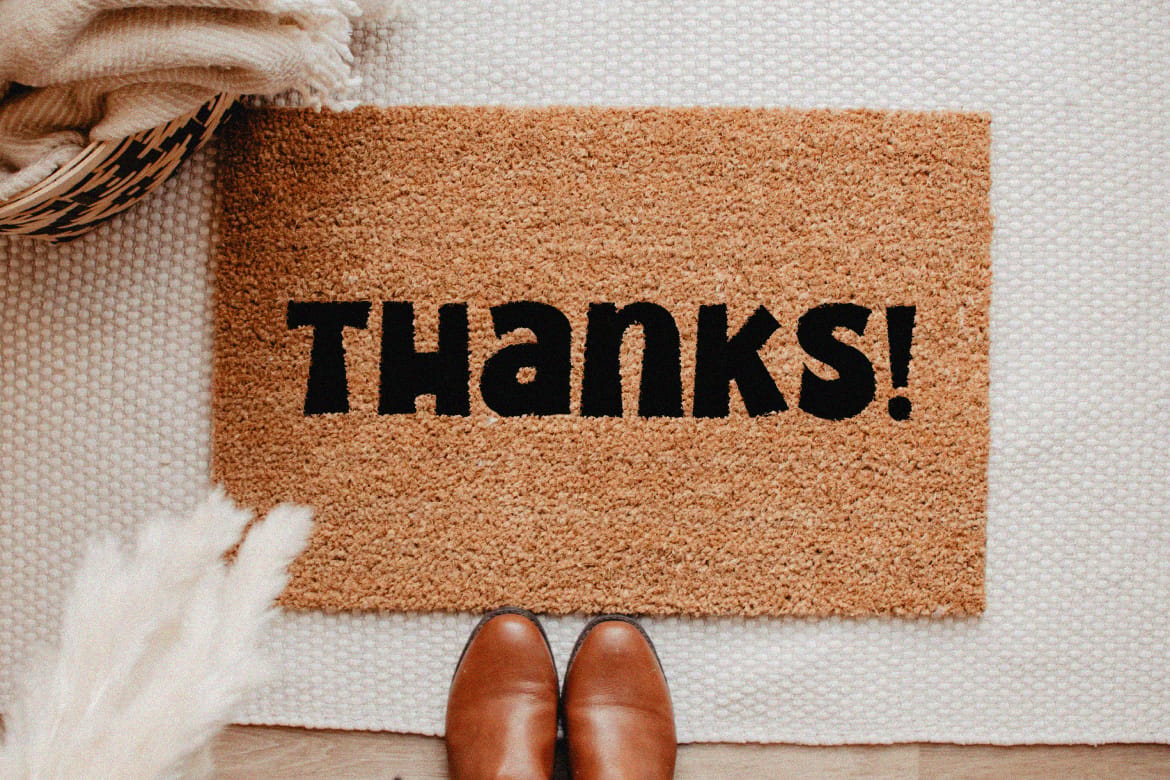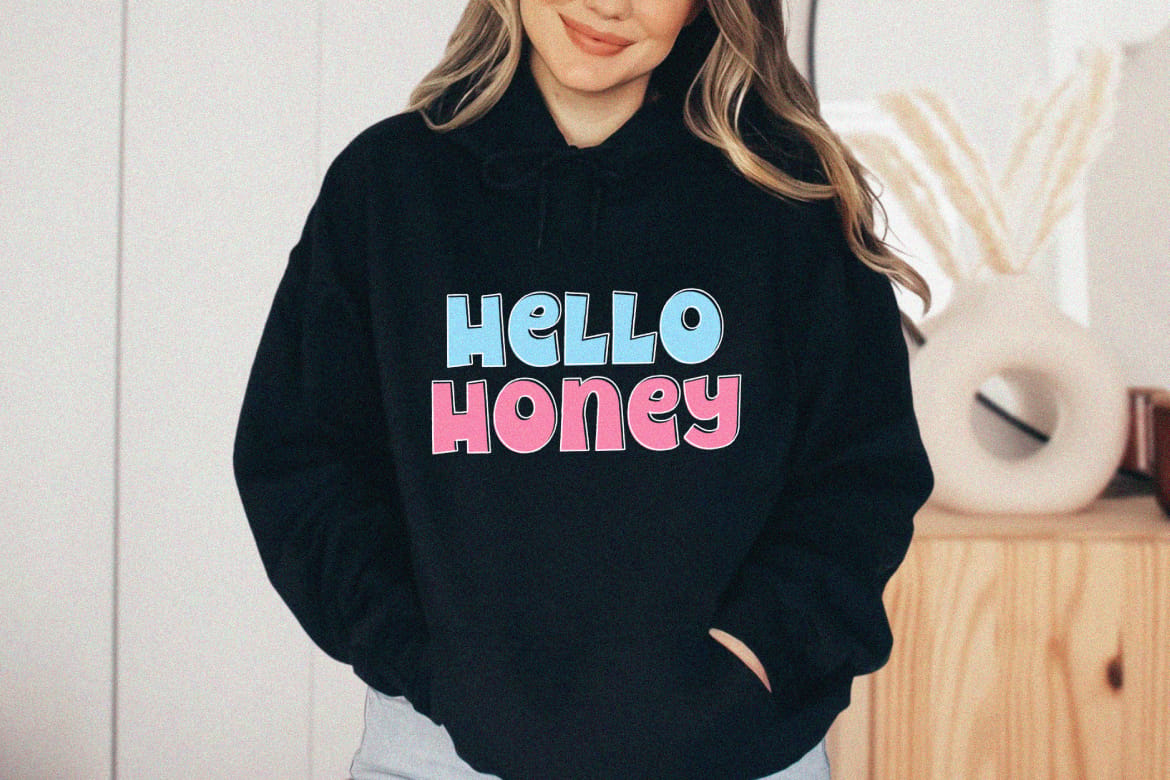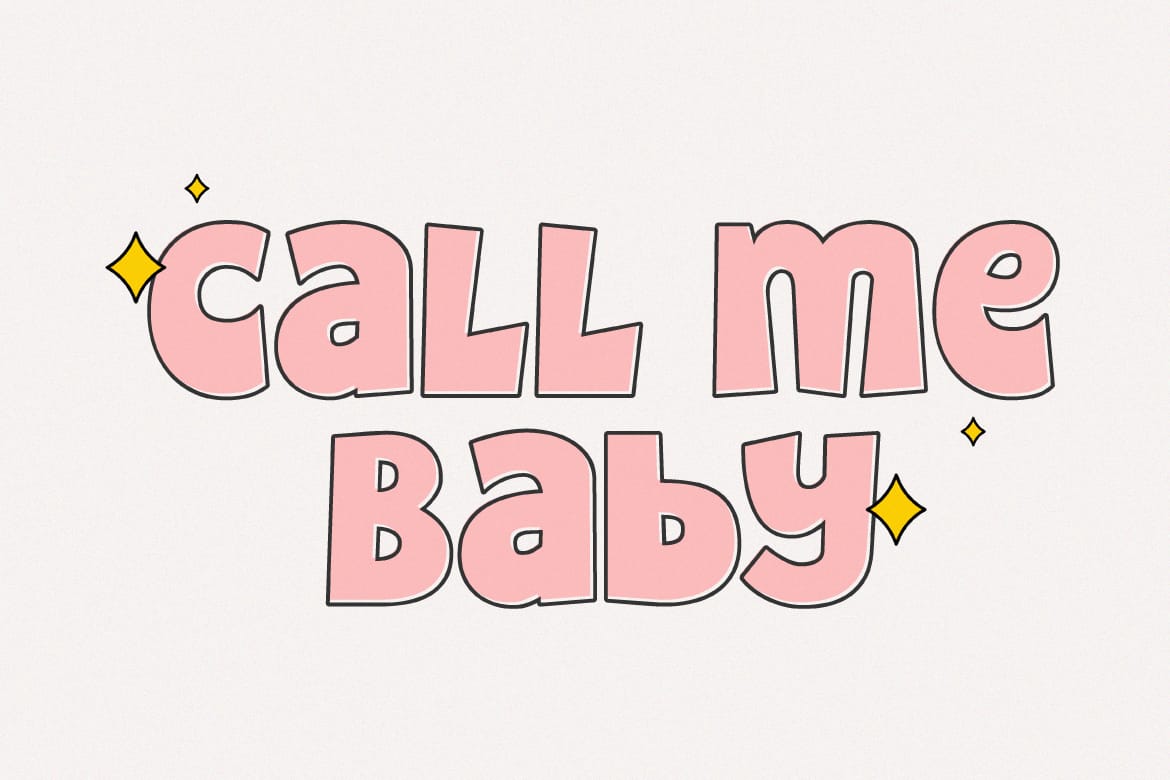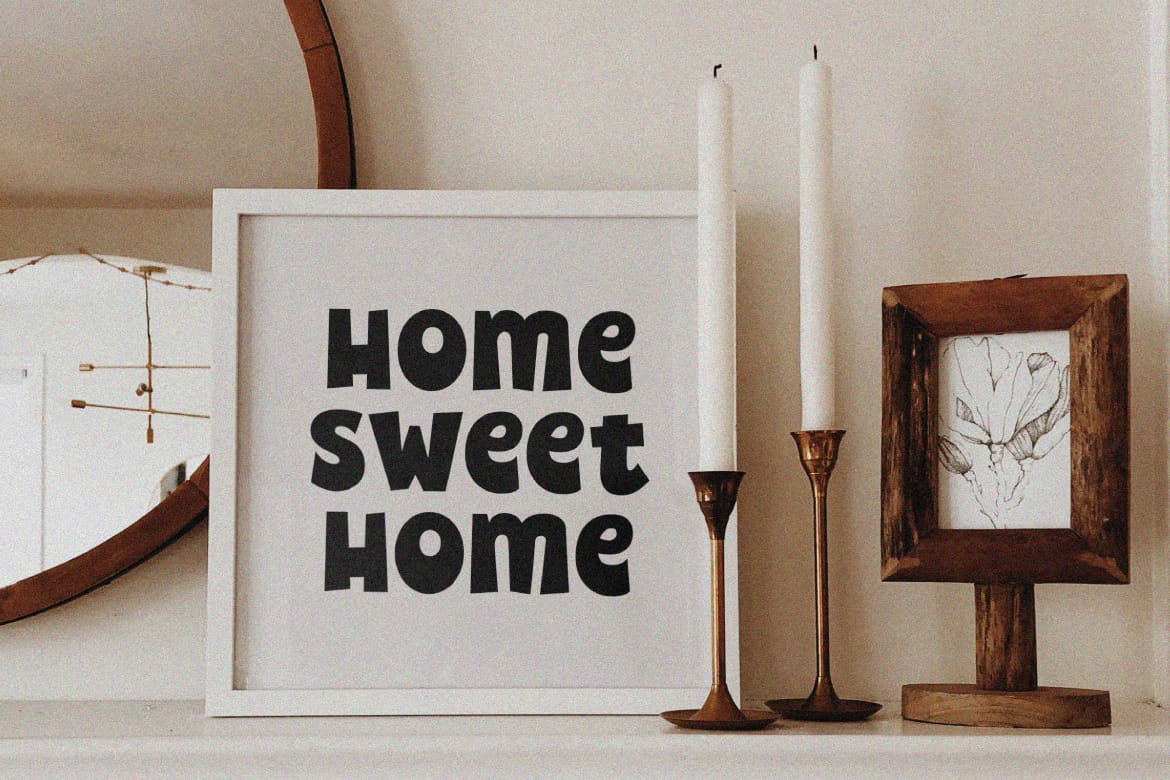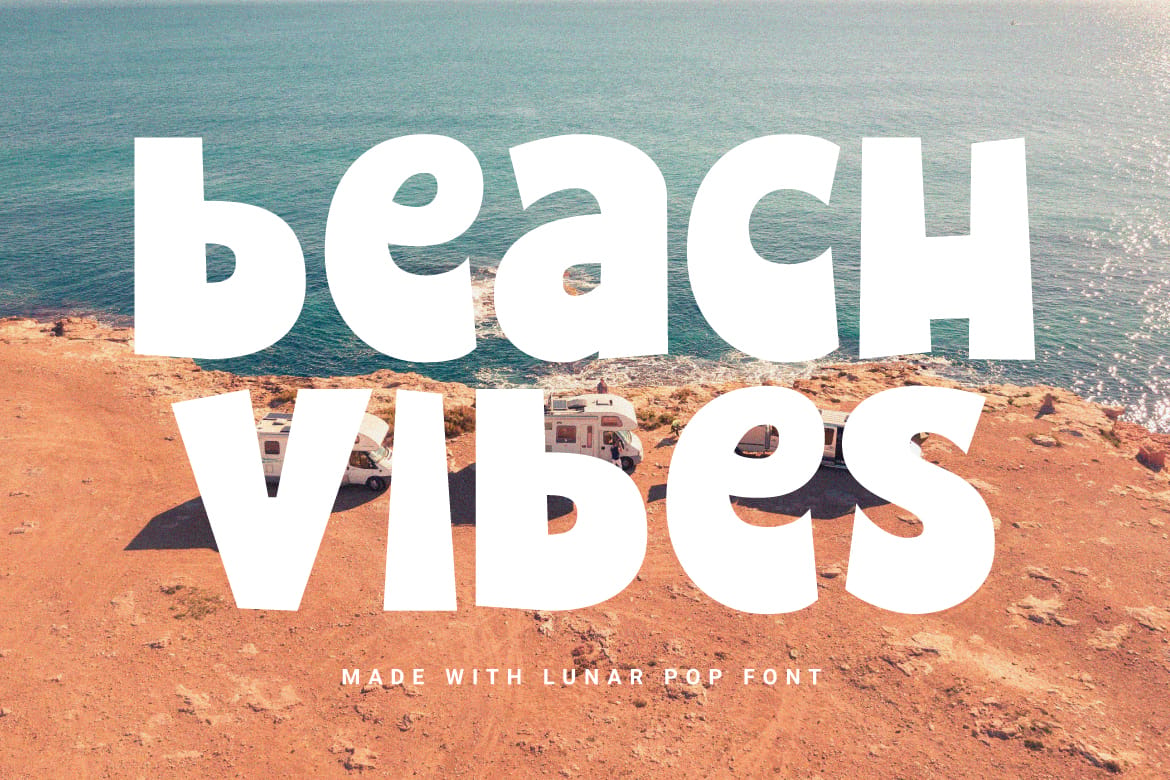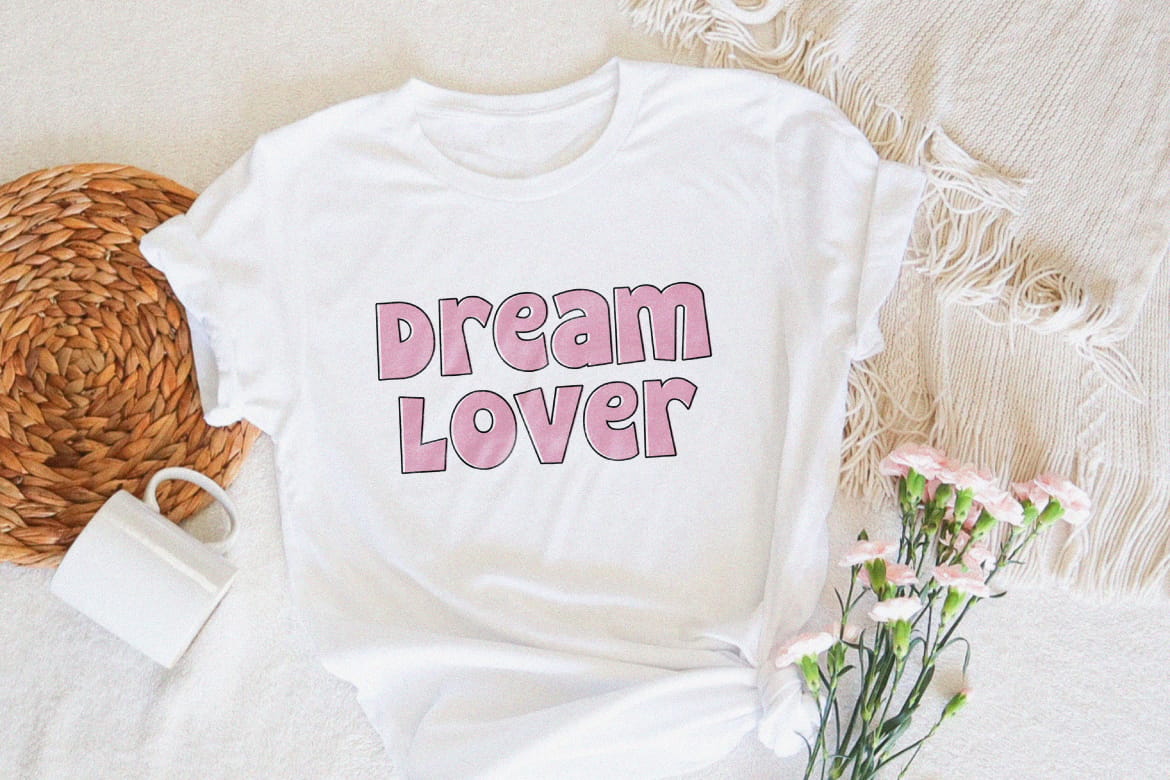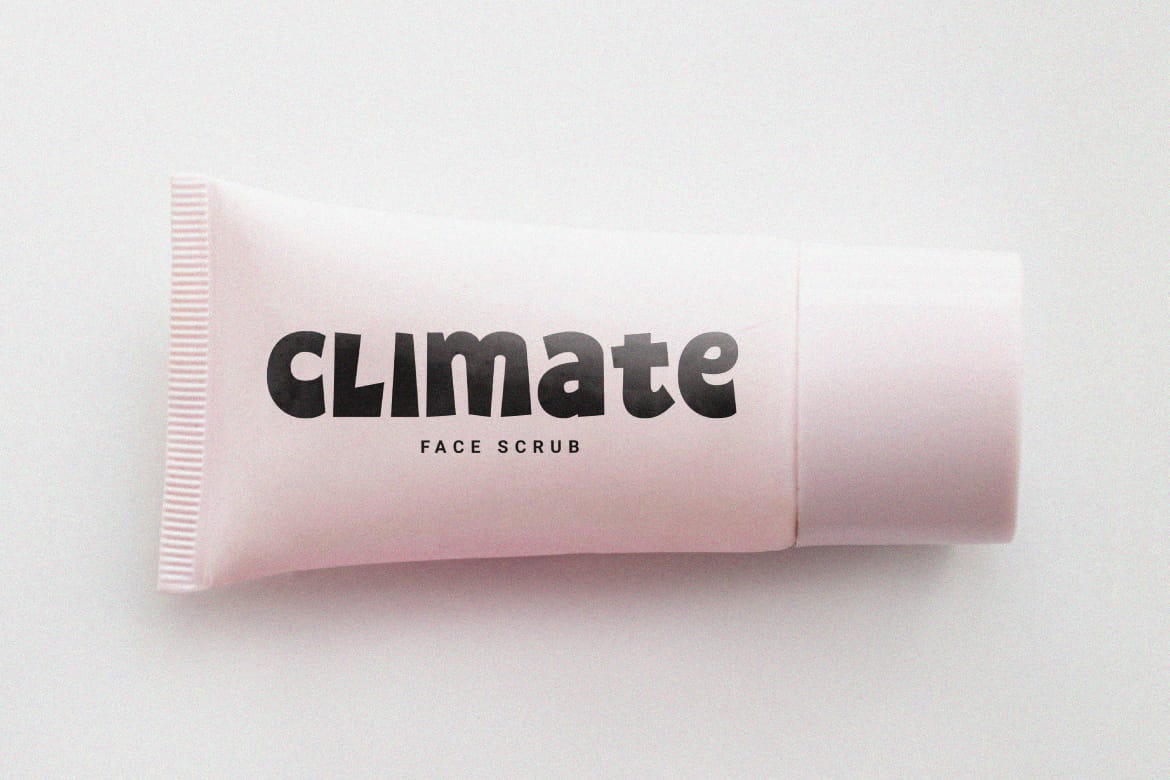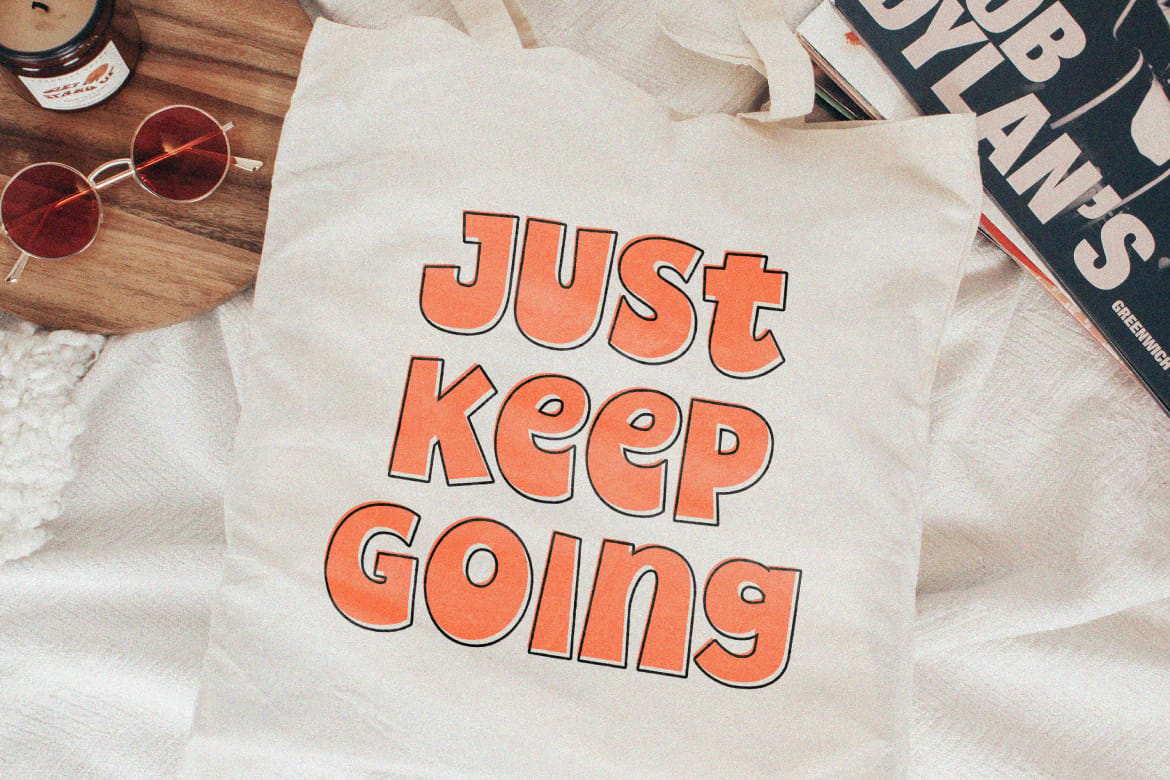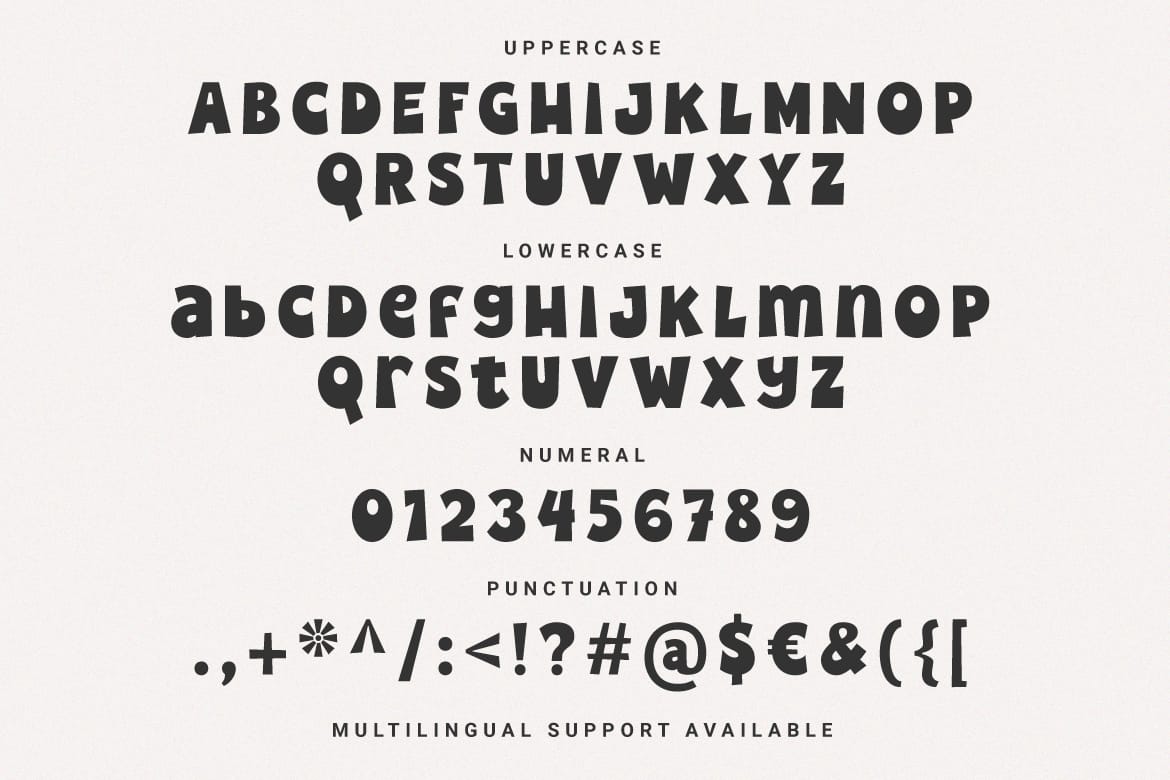
Lunar Pop - Display Font.
Bold and fun fonts are here to accompany your design projects. Consists of 2 styles, namely Regular & Outline which further adds to the creative value of this font. Perfect for poster design, branding, crafting, merchandise and more.
Features: Uppercase, Lowercase, Numeral, Punctuation & Multilingual.
Multilingual supported: Afrikaans, Albanian, Basque, Catalan, Danish, Dutch, English, Estonian, Filipino, Finnish, French, German, Indonesian, Irish, Italian, Norwegian, Portuguese, Spanish, Swedish, and many more.
- Regular and Outline styles
- Multilingual support included